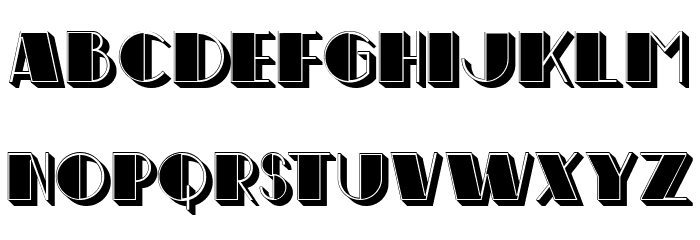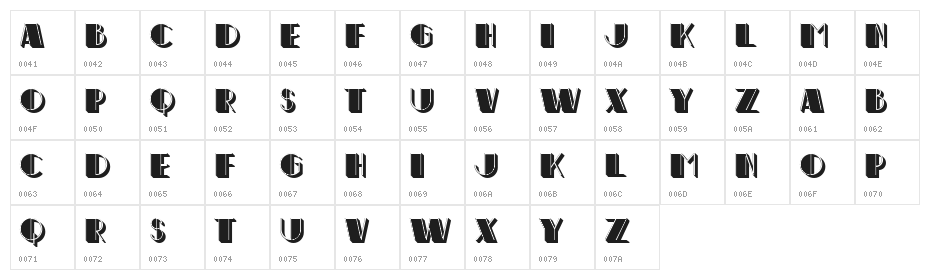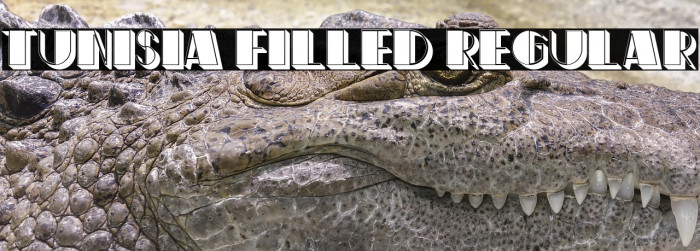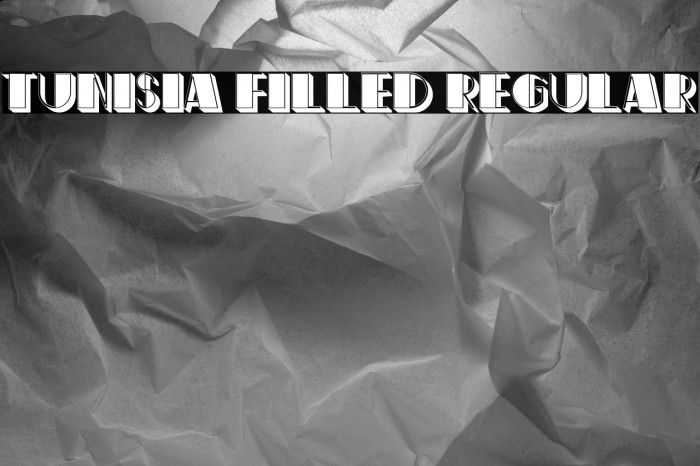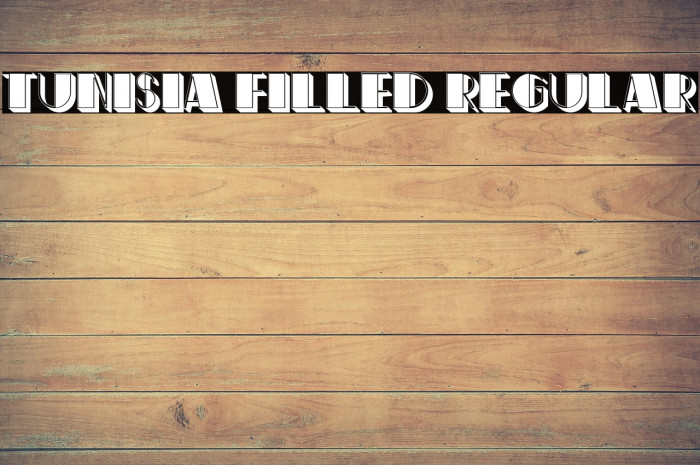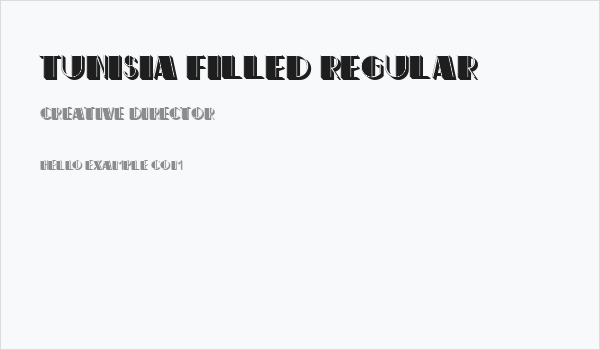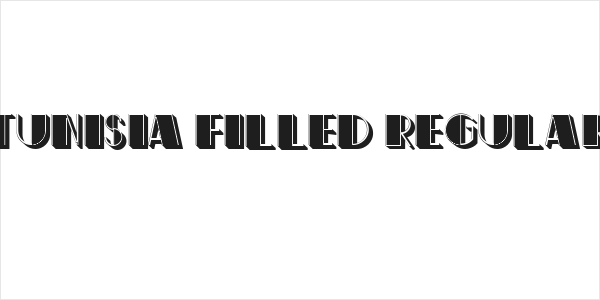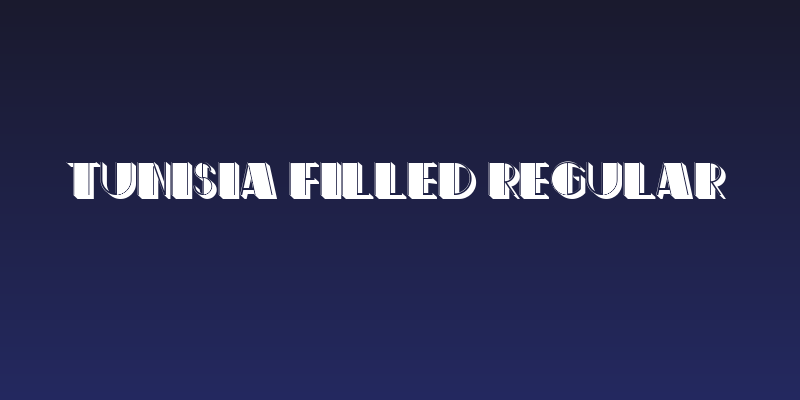
Tunisia Filled Regular Font
Tunisia Filled Regular Description
This font features a bold, geometric style with a distinct three-dimensional effect. The letters are characterized by thick, solid strokes with sharp angles and edges, giving them a strong and impactful presence. The design incorporates a shadow-like effect, adding depth and a sense of movement to the characters. The uppercase letters are uniform in height, creating a cohesive and structured appearance. This font is visually striking and commands attention, making it suitable for designs that require a bold statement.